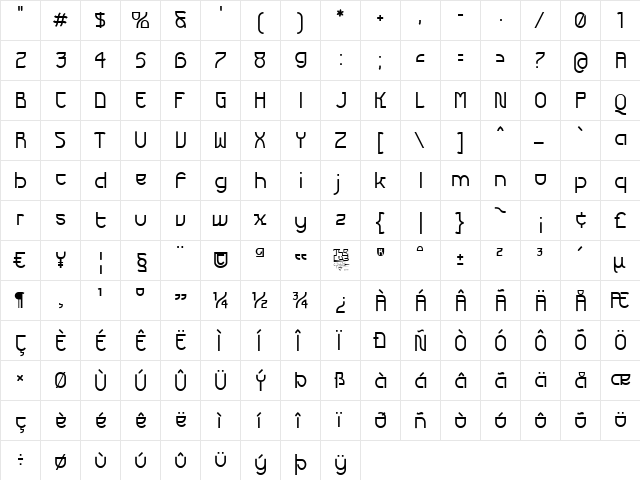
Futurex Variation Alpha Regular
| Designer | Graham Meade and Apostrophic Laboratories |
Design Context for Futurex Variation Alpha Typeface
Futurex Variation Alpha channels digital-age aesthetics through its sharp, structured letterforms — ideal for brands that want to signal innovation.
Pro Tip: Use Futurex Variation Alpha in combination with a neutral sans for body text. Let it define the brand voice in headlines while keeping reading comfortable elsewhere.